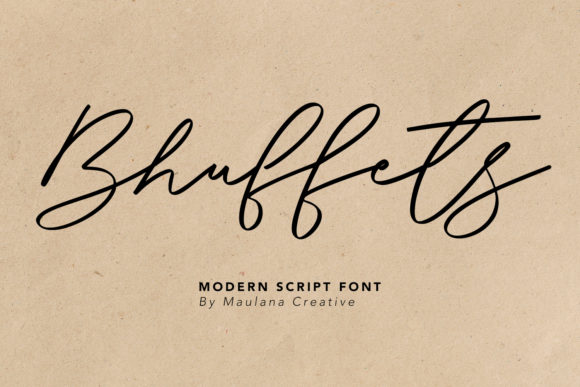
The Designer’s Delight: Falling in Love with Bhuffets Font
I’ll never forget the moment I stumbled upon Bhuffets Font while working on a high-end branding project for a luxury wedding planner. My client was clear: she wanted a font that exuded elegance, sophistication, and a touch of modern whimsy. I had spent hours scouring font libraries, but nothing seemed quite right – until I laid eyes on Bhuffets. It was love at first sight! 💕
Bhuffets is an exquisite handwritten font, masterfully designed to become a true favorite. It maintains its classy calligraphic influences while feeling contemporary and fresh. In this article, I’ll share my experience with Bhuffets, its features, and how to make the most of it in your designs.
• 💫 Exquisite handwritten feel with a perfect balance of elegance and playfulness
• ✅ Extensive character set, including multilingual support
• 🔥 Beautifully crafted swashes and ligatures for added flair
• 📈 Highly legible, even at smaller font sizes
• ⚠️ Some users may find the font a tad too ornate for very casual or playful projects
• 🤔 Limited availability of condensed or italic versions (but the regular style is versatile!)
The Story Behind Bhuffets: A Glimpse into Its Design Inspiration
While the true origins of Bhuffets Font remain a mystery, it’s clear that its designer was inspired by the world of high-end calligraphy and elegant handwriting. With its intricate details and flowing lines, Bhuffets embodies the perfect blend of traditional craftsmanship and modern design sensibilities.
Q: What makes Bhuffets Font so special?
A: Bhuffets’ unique blend of classic calligraphy and modern flair makes it a standout font for designers seeking elegance and sophistication.
Q: How does Bhuffets compare to other script fonts?
A: Bhuffets stands out for its exceptional legibility, extensive character set, and beautifully crafted swashes and ligatures.